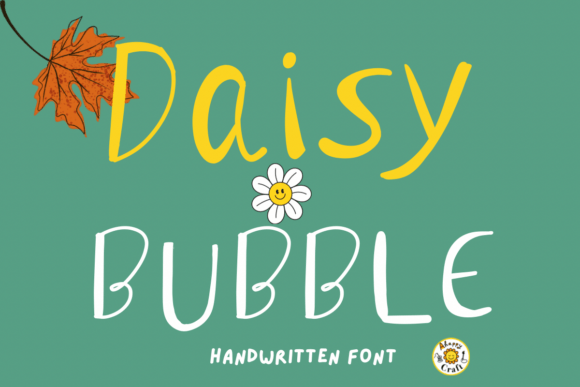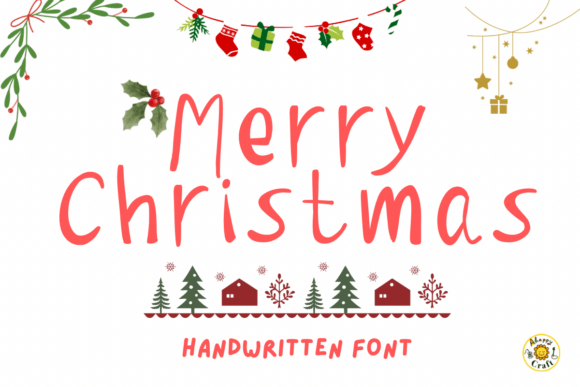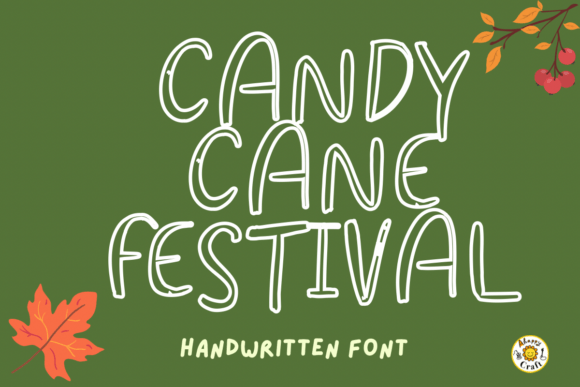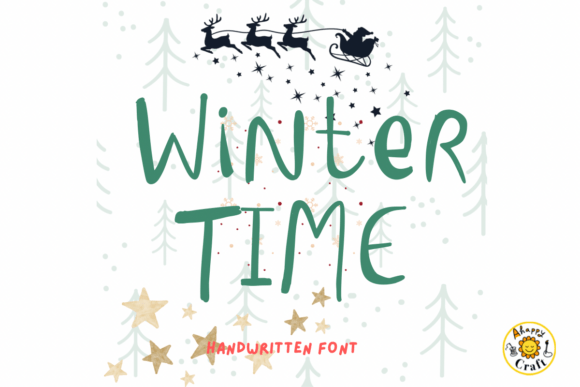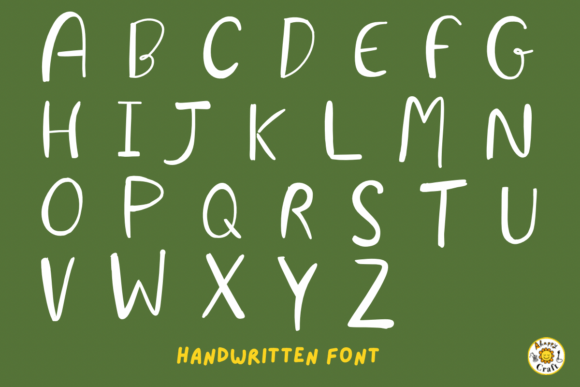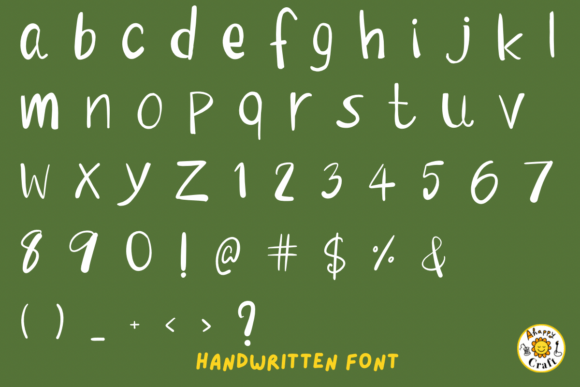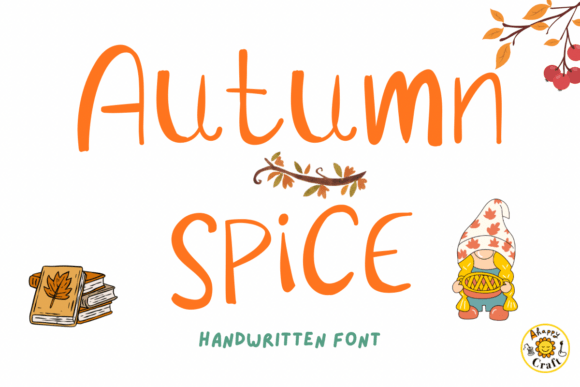
Introducing Autumn Spice Font: The Perfect Addition to Your Design Collection
Are you on the hunt for a font that exudes a playful, whimsical vibe? Look no further than the Autumn Spice Font! This delightful handwritten font is perfect for designers and crafters seeking a casual, handmade aesthetic for their projects. With its cute doodle style and fun display font characteristics, Autumn Spice is sure to become your go-to choice for a wide range of creative endeavors.
What Makes Autumn Spice Font So Special?
Autumn Spice Font is a one-of-a-kind, hand-drawn font that boasts a unique, quirky charm. Its brush pen lettering style gives it a fun, playful feel that’s perfect for projects that require a personal touch. Whether you’re designing for kids, creating a cartoon-style graphic, or simply want to add some personality to your text, this font is an excellent choice.
Some of the key features that make Autumn Spice Font stand out include:
- Cute and Quirky Design: The Autumn Spice Font features a delightful, doodle-style design that’s sure to capture the attention of your audience.
- Hand-Drawn and Handmade: Each letter has been carefully crafted by hand, giving the font a unique, personalized feel.
- Playful and Fun: The font’s playful style makes it perfect for projects that require a lighthearted, carefree vibe.
- Versatile: Autumn Spice Font can be used for a wide range of projects, from scrapbooking and graphic design to print-on-demand products like t-shirts, mugs, and bags.
- Modern Calligraphy: The font’s modern calligraphy style gives it a fresh, contemporary feel that’s perfect for designers looking for a unique aesthetic.
- Language Support: The font includes all alphabet letters in English, as well as numbers and symbols.
Autumn Spice Font is an excellent addition to any designer’s or crafter’s collection. Its versatility and playfulness make it perfect for a wide range of projects, including:
- Graphic Design: Use Autumn Spice Font to add a personal touch to your graphic design projects, from brochures and flyers to social media graphics and posters.
- Scrapbooking: The font’s playful style makes it perfect for scrapbooking projects, adding a fun and whimsical touch to your pages.
- Print-on-Demand: Autumn Spice Font is ideal for print-on-demand products like t-shirts, mugs, and bags, allowing you to create unique and eye-catching designs.
- Etsy and Online Marketplaces: Use the font to create eye-catching listings and promotional materials for your Etsy shop or online marketplace.
Autumn Spice Font is a delightful, handmade font that’s perfect for designers and crafters seeking a playful, whimsical aesthetic. With its unique design, versatility, and technical compatibility, it’s an excellent addition to any creative collection. Whether you’re working on a graphic design project, scrapbooking, or creating print-on-demand products, Autumn Spice Font is sure to bring a touch of fun and personality to your work.